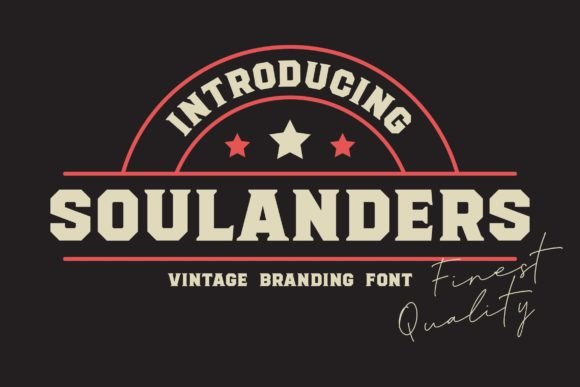
Journey through the annals of time with Soulanders Font, a testament to the enduring allure of the past. This font evokes the spirit of yesteryears, imbued with the charm and sophistication of a bygone era. Its carefully crafted serifs and elegant curves harken back to an epoch of artistry and craftsmanship, capturing the essence of vintage aesthetics.
Unleash your creativity with Soulanders Font, the perfect companion for your old-era visual branding endeavors. Adorn your posters, flyers, and marketing materials with an air of timeless elegance. Transport your audience to a world of nostalgia and intrigue with every word you typeset.
Visualize the impact of your vintage-inspired designs, enhanced by the timeless beauty of Soulanders Font. Picture your posters catching the eye with bold headlines that exude character and authenticity. Envision your flyers captivating audiences with titles that evoke a sense of mystery and intrigue. Let your marketing materials stand out from the crowd, infused with the charm of a bygone era.
Beyond its aesthetic appeal, Soulanders Font offers exceptional versatility. Its robust structure and unwavering legibility ensure clarity and impact across various applications. Whether you're crafting logos, designing websites, or creating social media graphics, Soulanders Font effortlessly adapts to your creative vision.
Trust Soulanders Font to elevate your designs to new heights, instilling a sense of nostalgia and sophistication that resonates with your audience. Its timeless appeal transcends trends, making it an enduring asset in your creative arsenal. Join the ranks of discerning designers who have embraced Soulanders Font to create captivating visuals that leave a lasting impression.